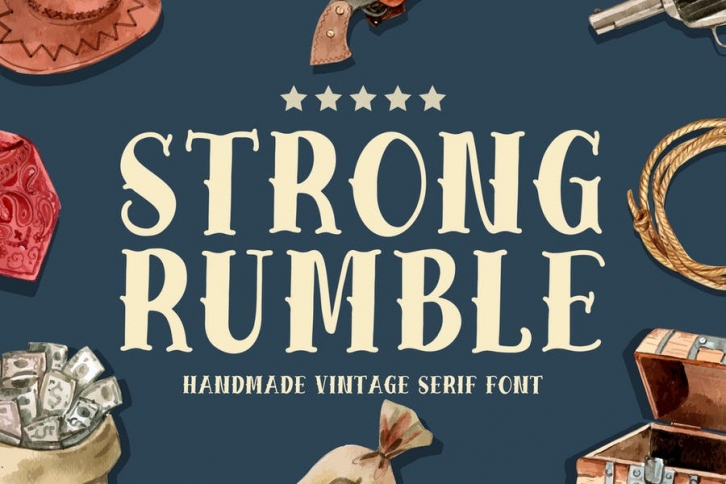
Introducing of our new product the name is Strong Rumble Vintage Serif Font. Strong Rumble very good for crafting, kids poster, wedding, promotion poster, cartoon, comic etc